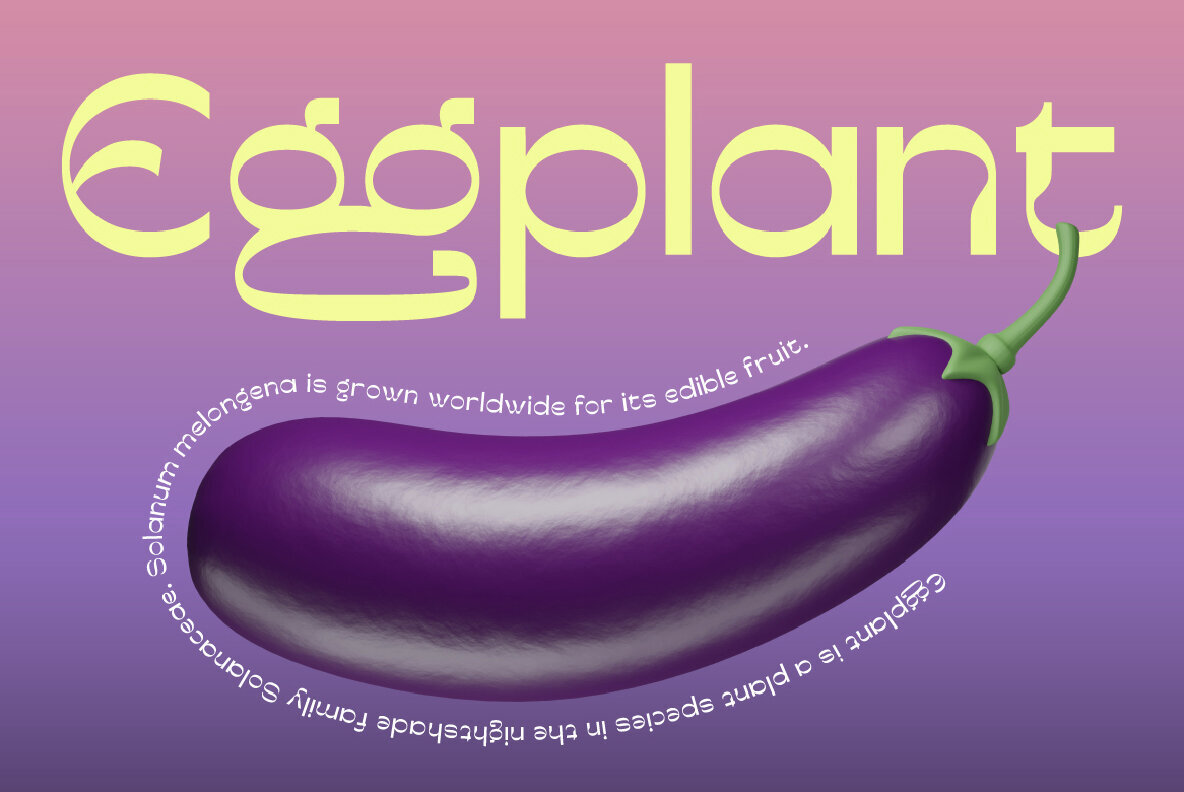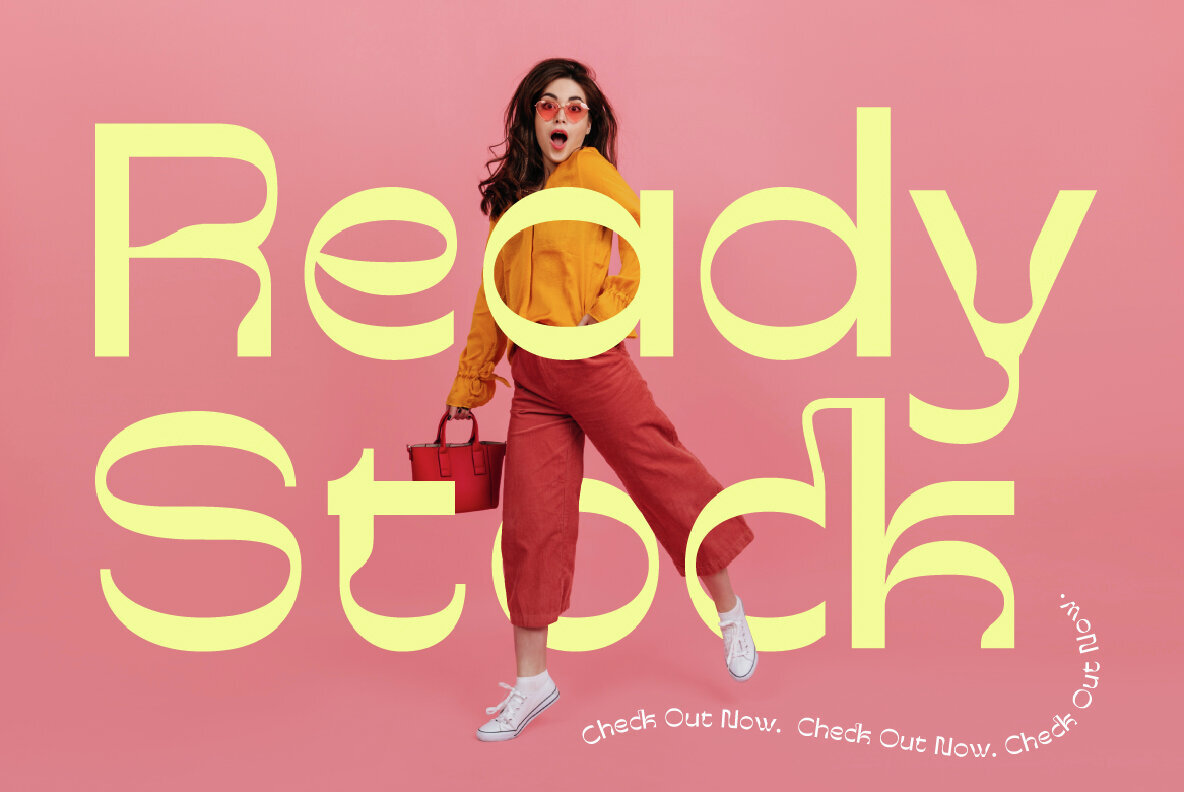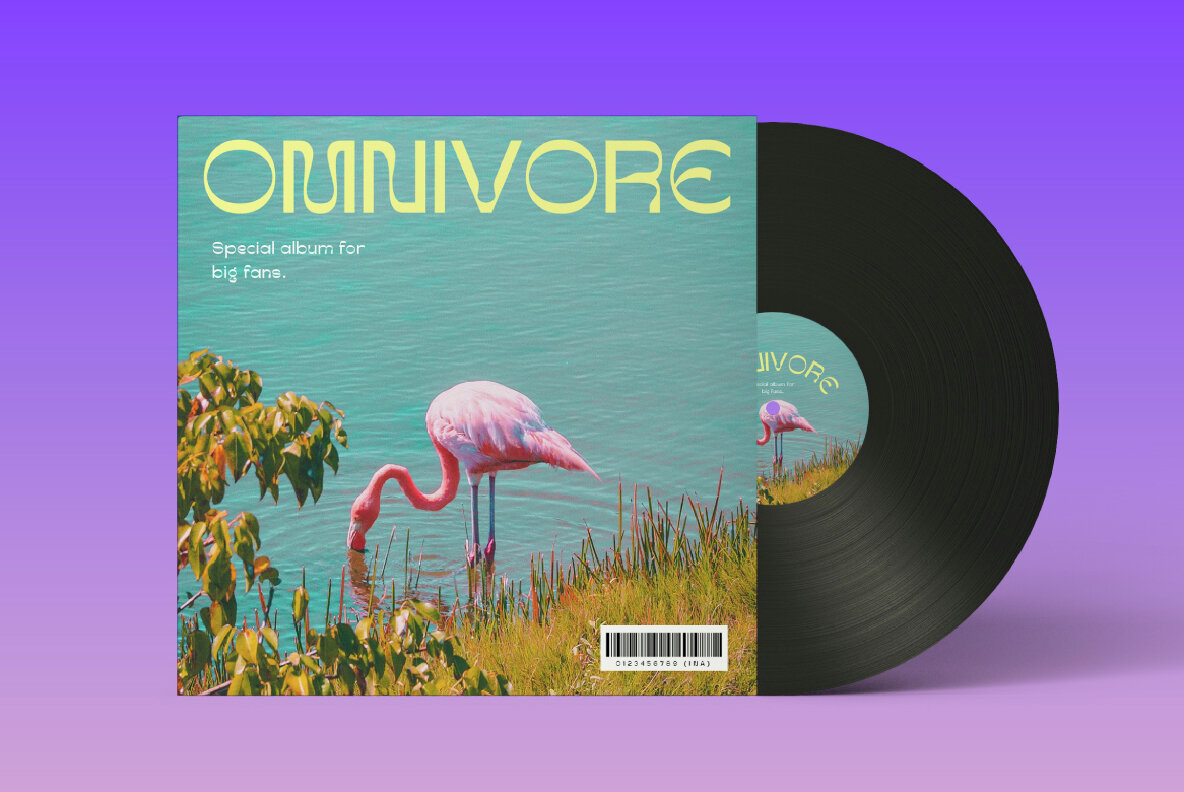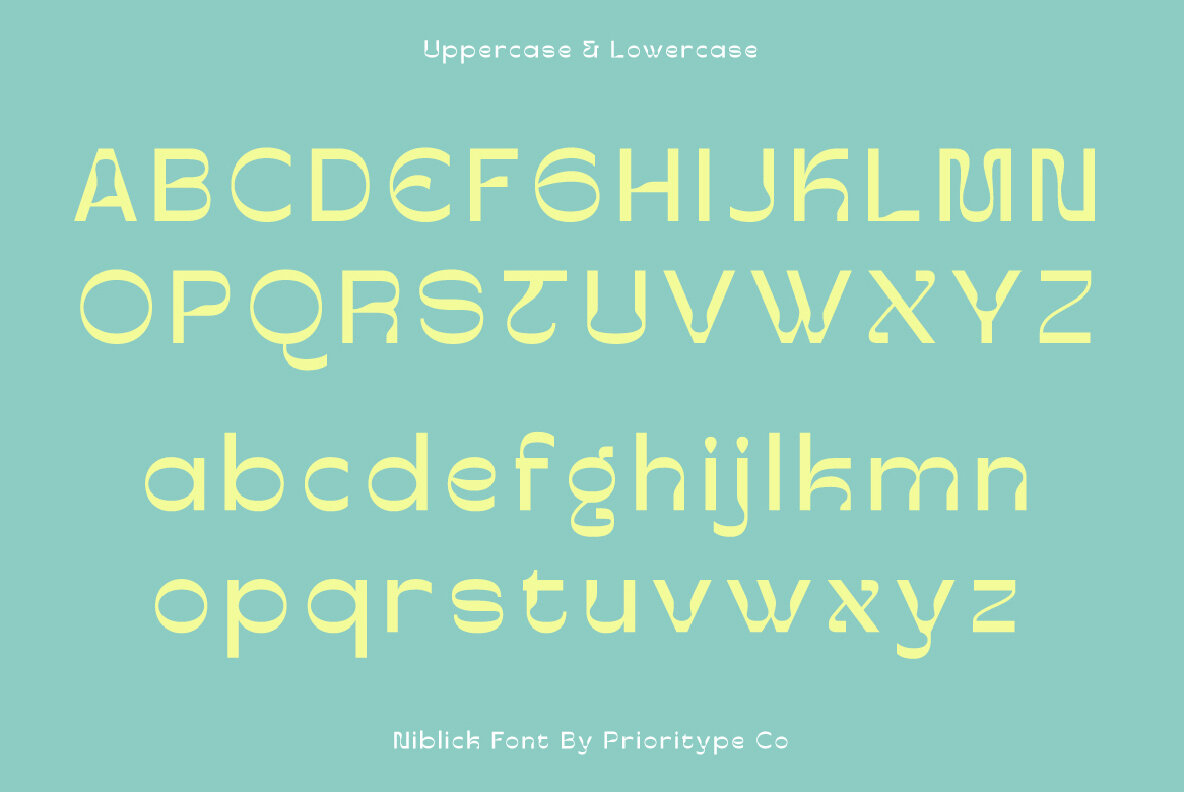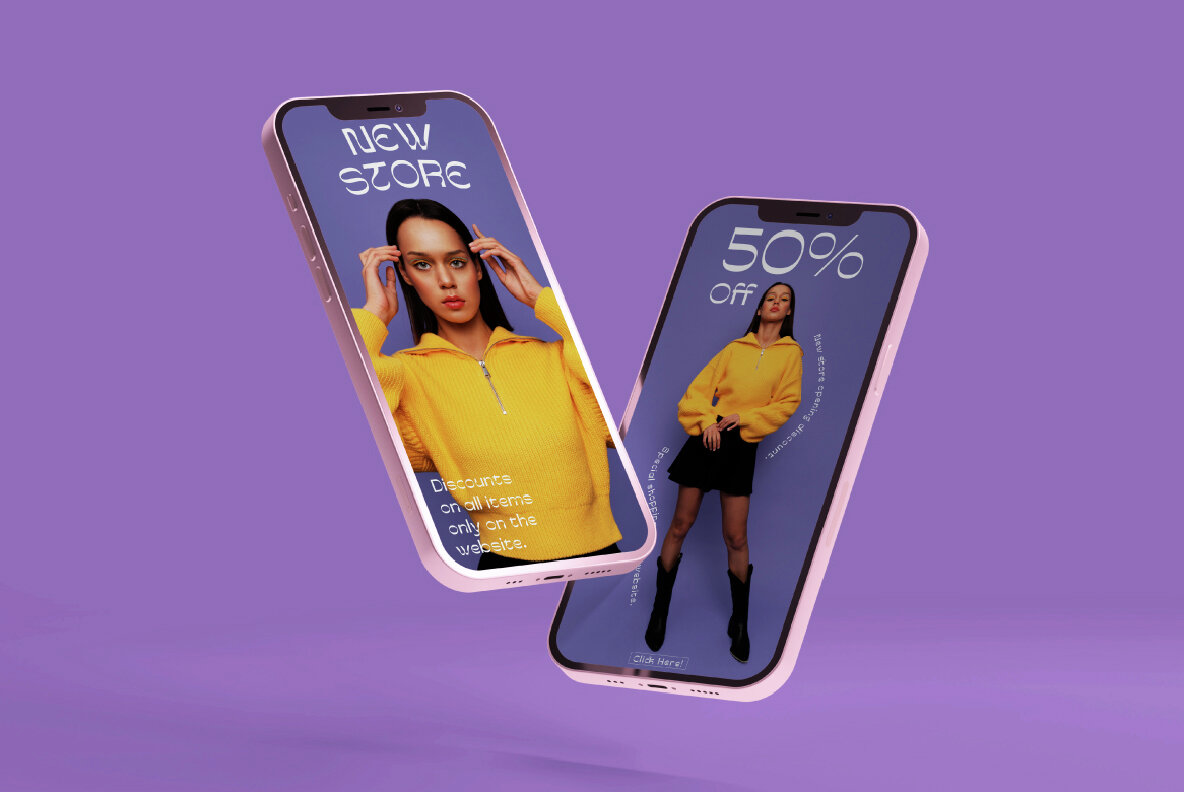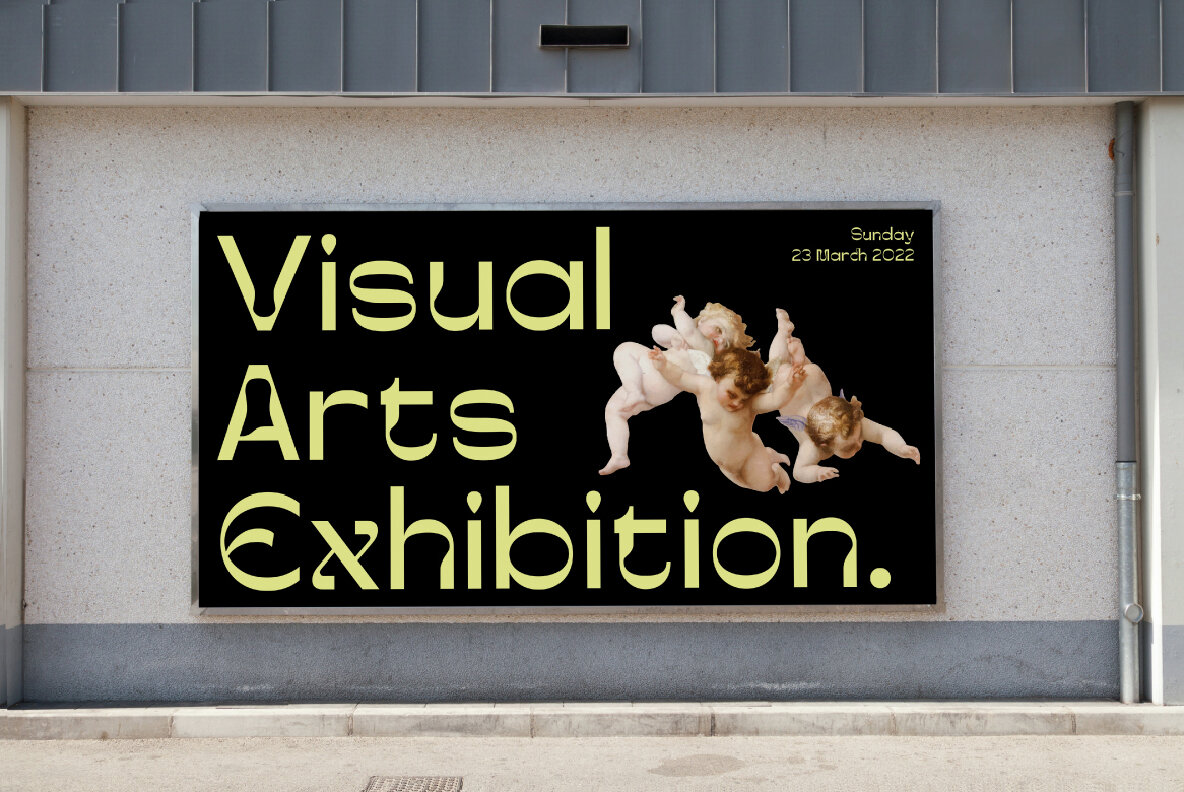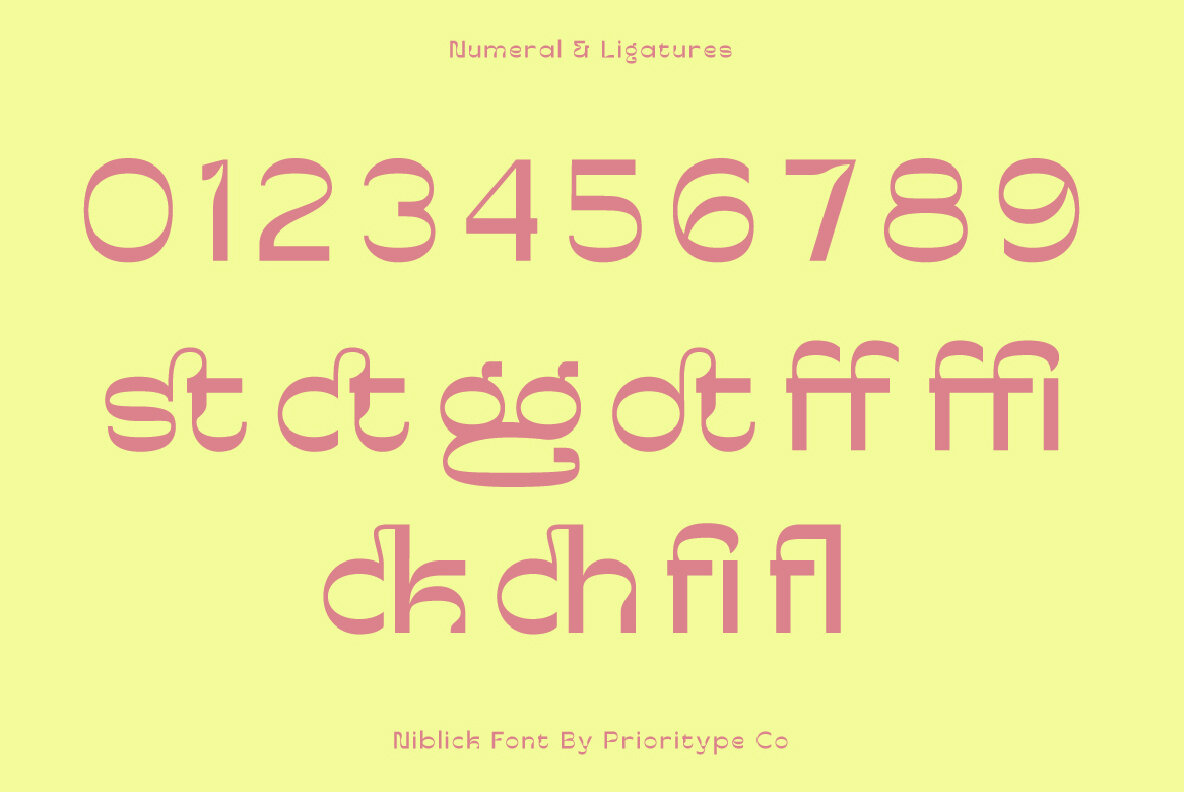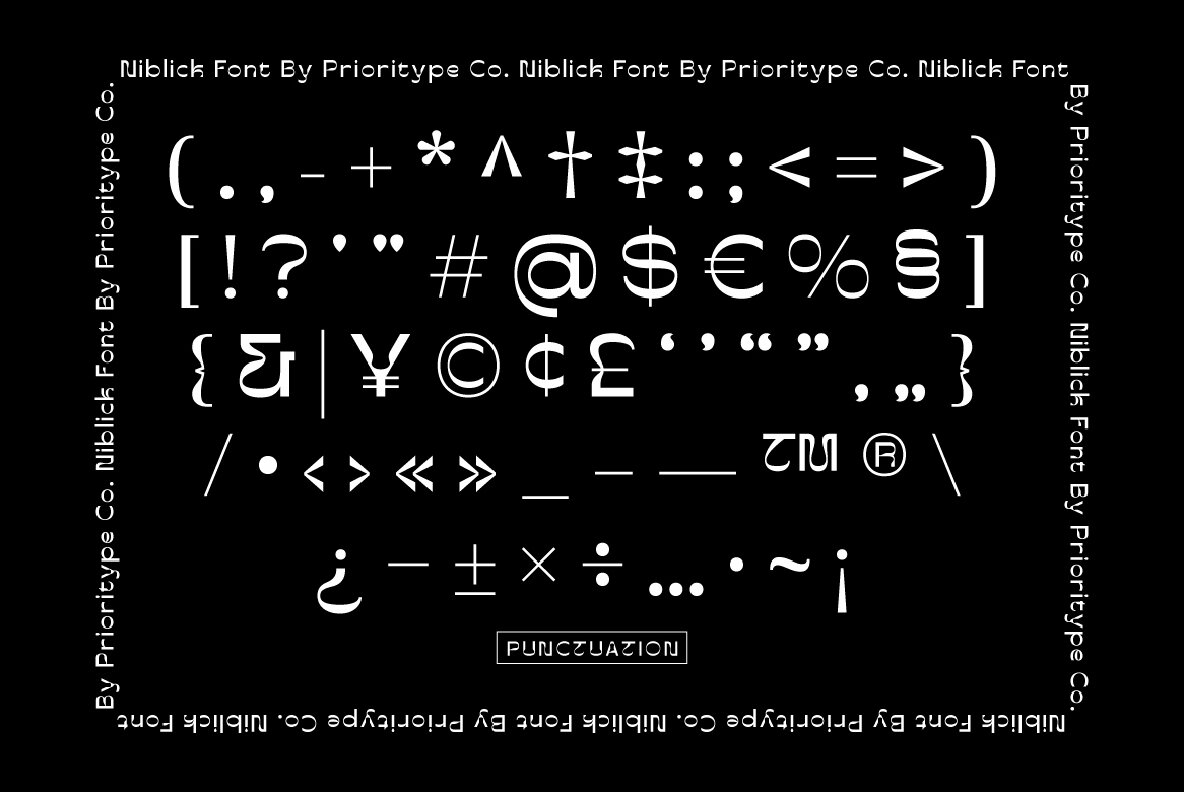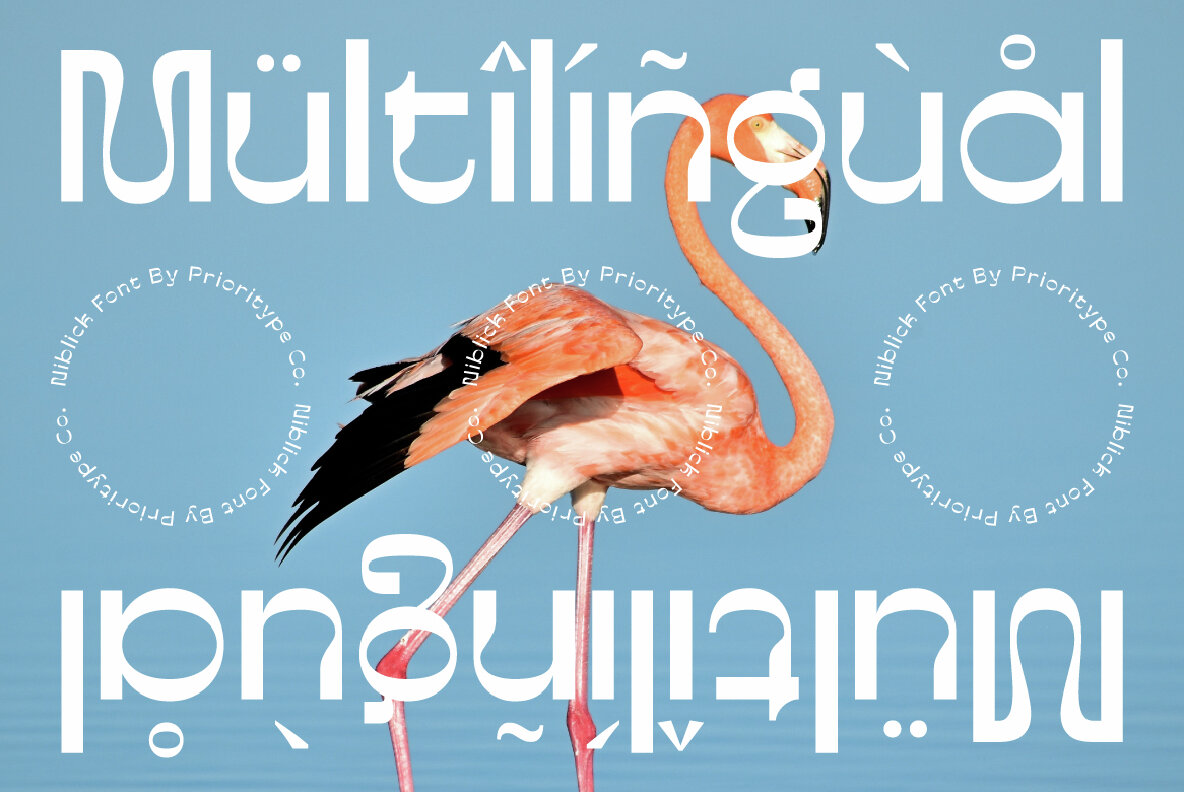
Niblick Font
Niblick Regular
Niblick is a modern and classic display typeface with unique touches on each character, creating a strong and memorable visual impression. Ideal for branding designs, posters, and logos, it ensures your project stands out. Features include uppercase, lowercase, numerals, punctuation, multilingual support, and ligatures.